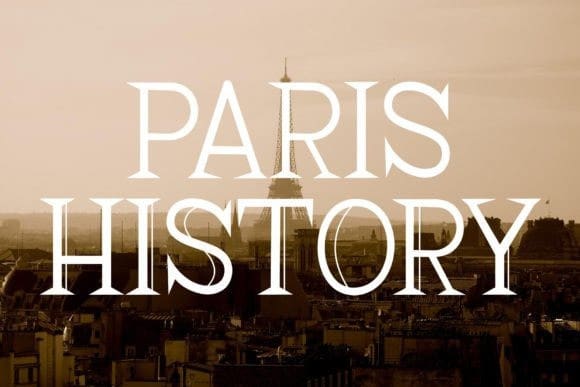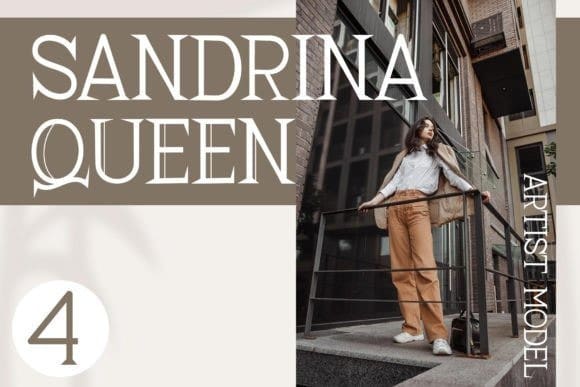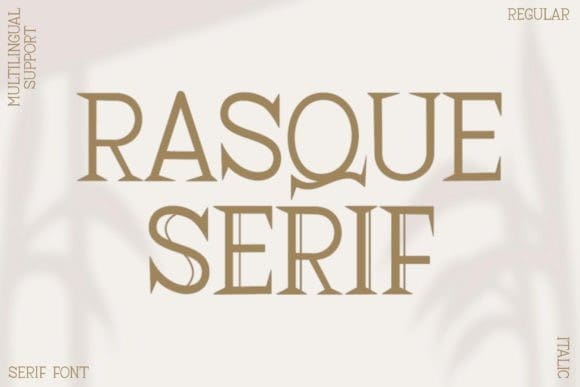
Rasque Serif Font
Rasque Serif Font – the embodiment of professional elegance in typography. This sophisticated, serif font stands as the perfect choice for designs destined for both small and large corporations. With its effortlessly classy aesthetic, RasqueSerif can transform logos and various design elements into instant masterpieces. Trust in the harmonious balance of its visually appealing features to elevate your design to new heights. Harness the potential of Rasque Serif and illustrate the power of artful communication.